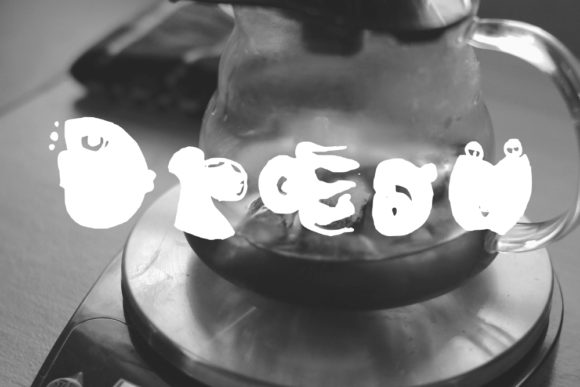
HomeScript FontsElisya Font Script Fonts Elisya Font FacebookXPinterestWhatsApp About Elisya Font The Elisya is a stylish handmade font. It has a fun en modern style which is perfect for various designing needs. DOWNLOAD ON CREATIVE FABRICAThis font is sold and delivered by Creative Fabrica. Font Canyon may earn a commission if you buy through this link. People also explored Shopping Font Rose Font Ariesta Script Font Simple Handmade Font Magic Eggs Font Tactico Font DingMaps Font Costiera Font Lucky Clover Font 340 0 TagsElisya Font Previous articleFriday October Twelve FontNext articleGredom Script Font LEAVE A REPLY Cancel reply Comment: Please enter your comment! Name:* Please enter your name here Email:* You have entered an incorrect email address! Please enter your email address here Website: Save my name, email, and website in this browser for the next time I comment. Personal Use Free Rennoya Personal Use Free Read more about this font Krase Personal Use Free Read more about this font Banana Valentine Personal Use Free Read more about this font Legacy Personal Use Free Read more about this font BLOG Free vs Paid Fonts: Why Investing in Premium Fonts Is Worth It Free vs Paid Fonts: Why Premium Fonts Are Worth It in 2025 The debate of free vs paid fonts continues in the design world. While... Fonts That Capture the Spirit of New York City How to Cut Any Font on Cricut: Convert a Font to SVG (Free) Best Fonts for YouTube Videos: Make Your Thumbnails Stand Out